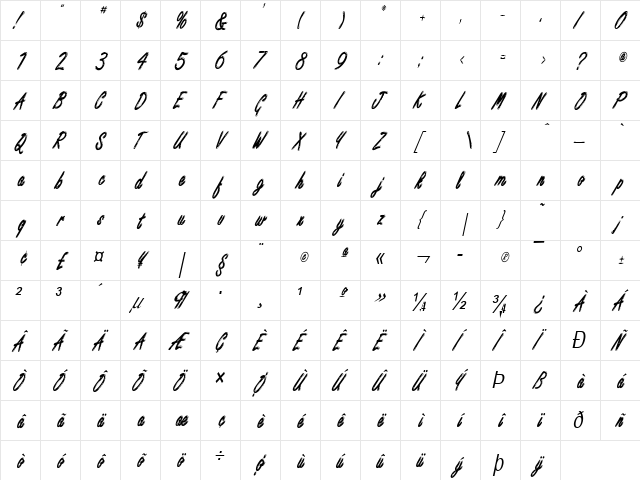
Encino Condensed Italic Font Preview
Design Context for Encino Condensed Typeface
Encino Condensed takes a measured approach to typography — its balanced proportions and neutral character make it a reliable workhorse for both digital and print work. The dynamic lean of this cut emphasises speed and emphasis in any layout. The condensed width makes it efficient for tight spaces without sacrificing legibility.